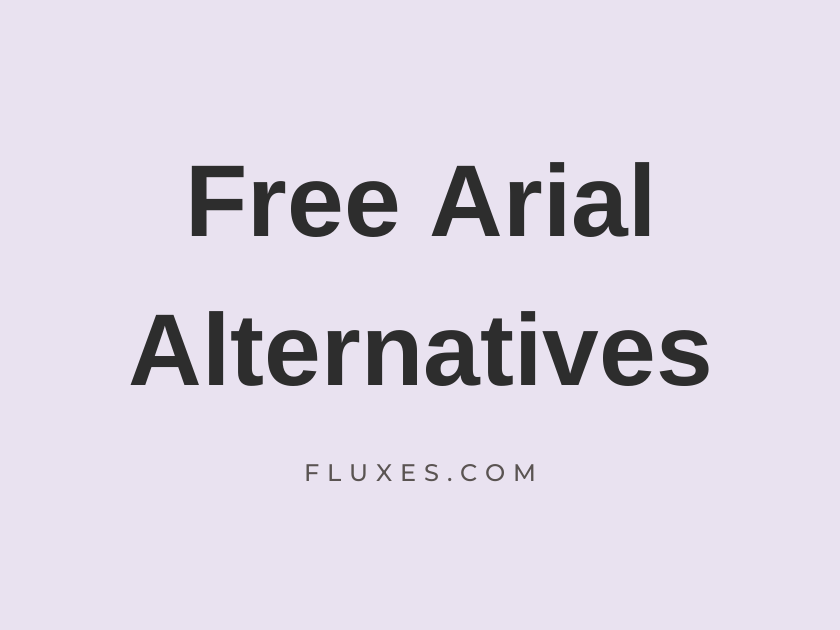
15 Best Free Fonts Alternatives to Arial
Arial has been the default choice for reports, resumes, forms, and interface text for so long that its neutrality has become a kind of shorthand for “safe.” But Arial is a licensed system font, and if you are building a website or shipping a product, you need something you can embed freely without worrying about licensing terms. The good news is that Google Fonts hosts a strong set of grotesque and humanist sans serifs that match or improve on Arial’s clarity, several of them built specifically as open, metric-compatible replacements for it.
1. Arimo
A clean, dependable sans for everyday documents
Arimo
Arimo exists almost entirely for this purpose: it was drawn as a metrically compatible substitute for Arial, so line breaks and layouts translate directly if you are migrating a document or template. It has the same even, businesslike rhythm, just released under an open license you can use anywhere. If your goal is a true one-to-one Arial replacement with zero drama, start here.
2. Roboto
Straightforward text that reads well on any screen
Roboto grew out of Google’s own interface needs, and it shows in how comfortably it handles UI labels, buttons, and dense paragraphs of body copy alike. Its slightly mechanical, geometric skeleton is softened by warmer curves than Arial ever had, which keeps long-form reading from feeling sterile. It is one of the most widely used typefaces on the web, so pairing it with something more characterful for headlines is a common and effective move.
3. Open Sans
Friendly, legible type for websites and apps
Open Sans trades some of Arial’s rigidity for rounder, more open letterforms, which is exactly what its name promises. It was designed with on-screen legibility as the priority, so small paragraph text and long-form articles both stay comfortable to read. Many designers reach for it as their default body font precisely because it disappears into the content rather than calling attention to itself.
4. Noto Sans
Consistent, global type across every script
Noto Sans was built to cover essentially every writing system Unicode supports, which makes it an obvious pick for multilingual sites, documentation, or products shipping to international audiences. Its Latin characters are plain and even-toned in the same spirit as Arial, but the real payoff is consistency: switch languages and the voice of the typeface does not change. It is a practical rather than expressive choice, and that is the point.
5. PT Sans
Solid, readable text for print and screen
Originally commissioned for Russian government use, PT Sans carries a slightly more humanist warmth than Arial, with letterforms that feel drawn rather than mechanically constructed. It performs well in both print and screen contexts, holding up in dense paragraphs without turning muddy. It is a dependable, slightly friendlier alternative for anyone who finds Arial a touch too cold.
6. Source Sans 3
Clear, practical text set at any size
Adobe’s first open source typeface, Source Sans was built as a workhorse for UI and text, and it remains one of the cleanest, most restrained grotesques on Google Fonts. The proportions are calm and even, with none of Arial’s occasional awkward curves, and it stays crisp from caption size up through subheads. It pairs naturally with a serif for editorial layouts or stands alone in interfaces without needing much support.
7. Work Sans
Sharp, modern type built for screen reading
Work Sans leans on early grotesque sans serifs from the twentieth century for its shapes, giving it a slightly more contemporary, squared-off character than Arial’s blander default. It was optimized specifically for on-screen text at medium sizes, so it earns its keep in interfaces, dashboards, and body copy rather than display headlines. Designers who want something that reads as more current than Arial without becoming trendy tend to land here.
8. IBM Plex Sans
Technical, confident type for interfaces and docs
Plex Sans was commissioned by IBM as a corporate identity typeface, and it carries a slightly more engineered, technical feel than Arial, with distinctive details in letters like the lowercase “l” and “i.” It suits software documentation, technical reports, and dashboards particularly well. The family includes companion serif, monospace, and condensed styles, which makes it easy to build an entire document system around a single, cohesive voice.
9. Inter
Precision-tuned type for user interfaces
Inter was designed from the ground up for computer screens, with a tall x-height and careful spacing that keeps small UI text sharp even on low-resolution displays. It has become something of a default choice for product design, and for good reason: it is exceptionally legible at the sizes Arial usually gets used for, form labels, buttons, tables. It can read a little clinical at large display sizes, so save something with more character for oversized headlines.
All of these fonts download free from Google Fonts and can be self-hosted or served from Google’s CDN, making them straightforward replacements wherever Arial has been the default by habit rather than necessity.
None of these typefaces try to reinvent the grotesque sans serif; they simply do Arial’s job with cleaner licensing, better screen rendering, and, in several cases, a bit more warmth. Any one of them is a safe foundation for a website, product interface, or document system that needs to read as clear, professional, and unmistakably free to use.